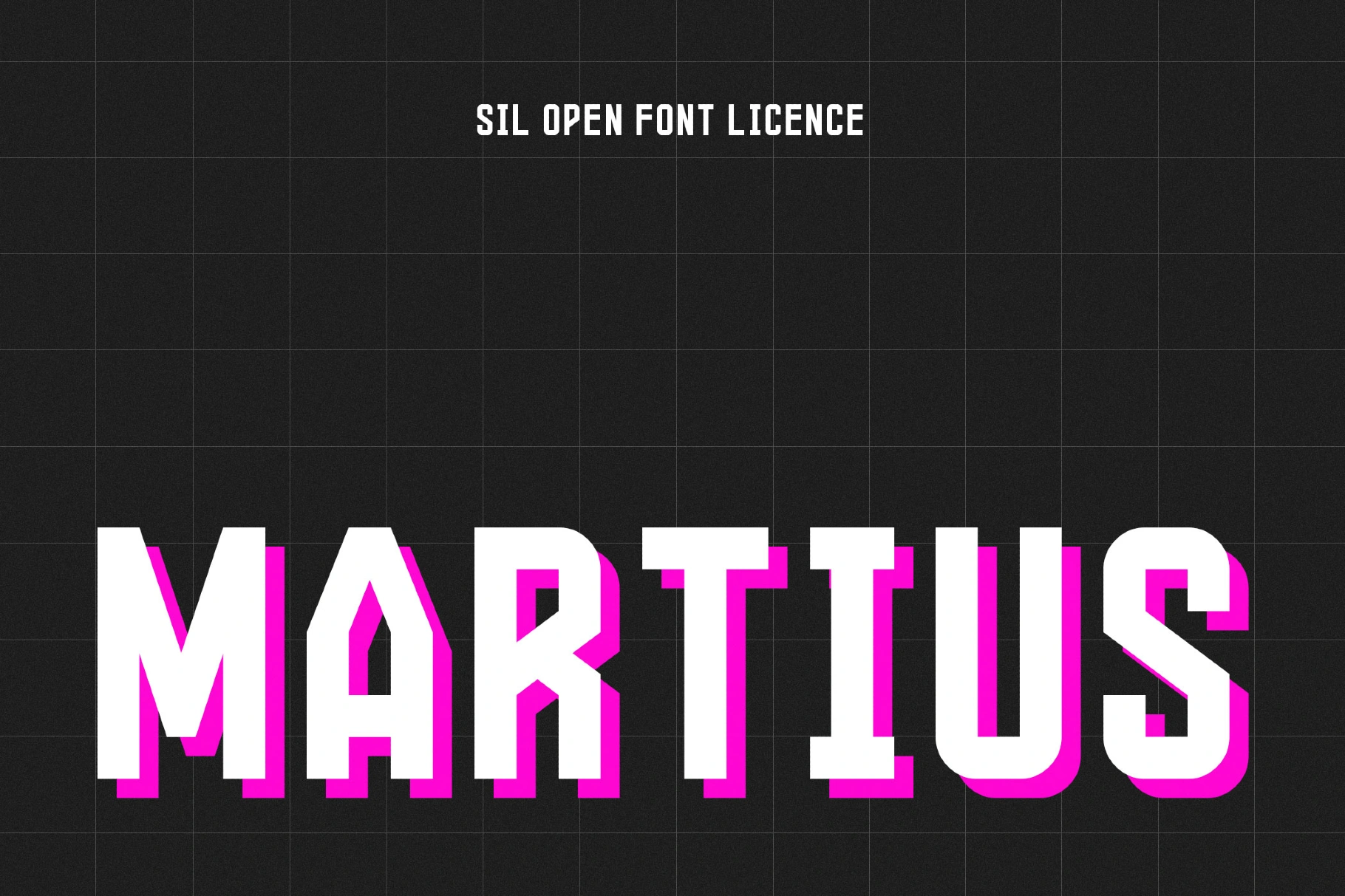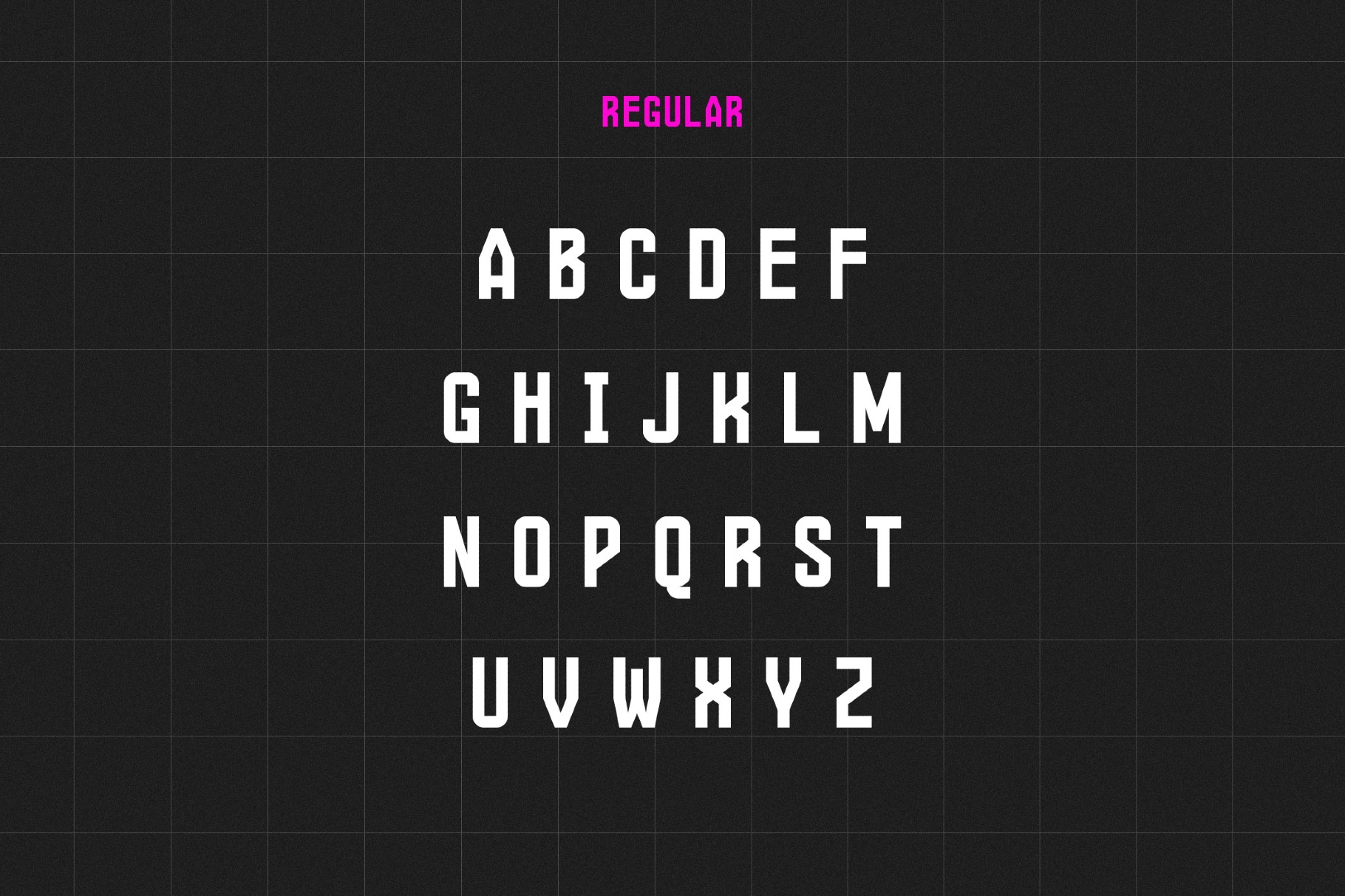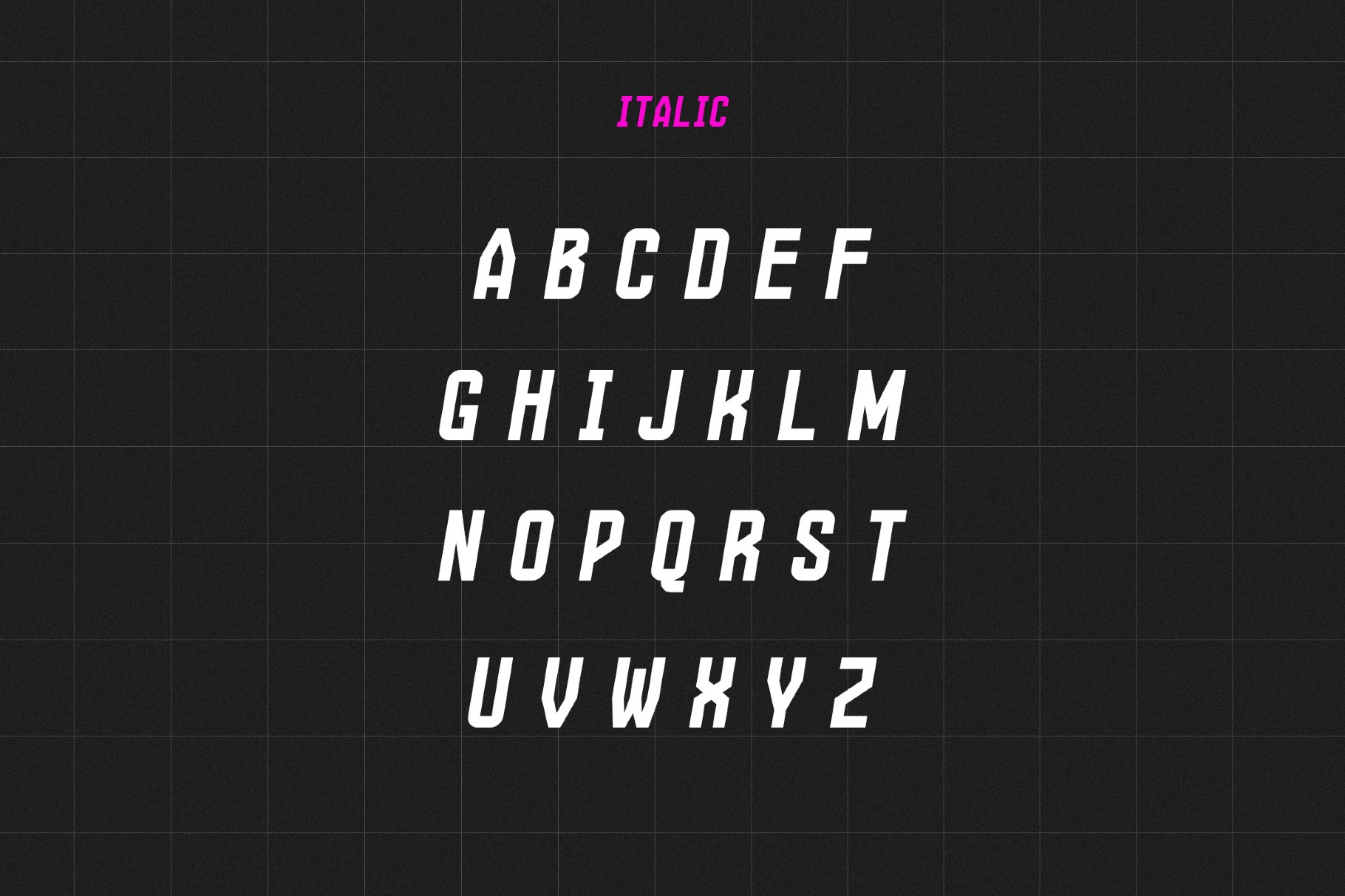
Martius Font
Martius
Martius squeezes sharp geometric strokes with sharp joints and clean cuts into a condensed sci-fi silhouette close to 1980s space-race aesthetics and utilitarian industrial labeling. This compact poster font works well for game and tech logos, UI overlays, album covers, editorial headlines, packaging, streaming thumbnails, magazine mastheads, event branding, wayfinding signage, and web or social media titles.
- Two styles: Regular and Italic.
- Uppercase letters only.